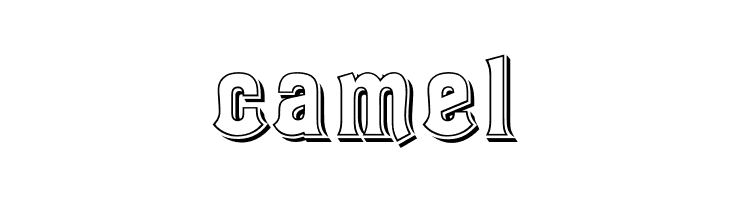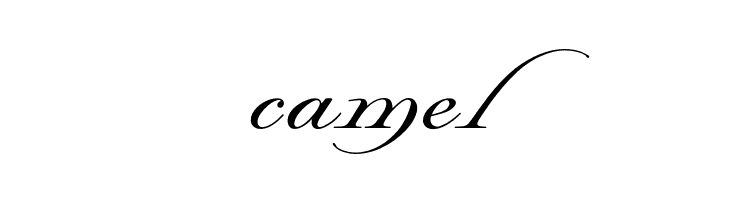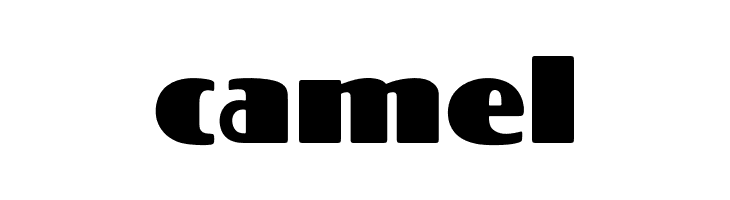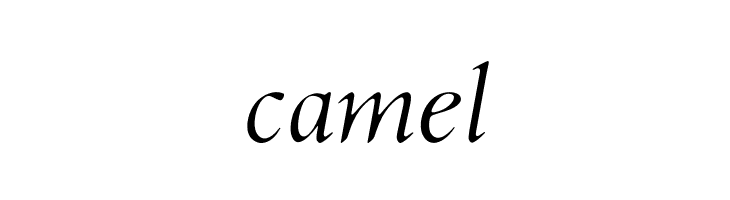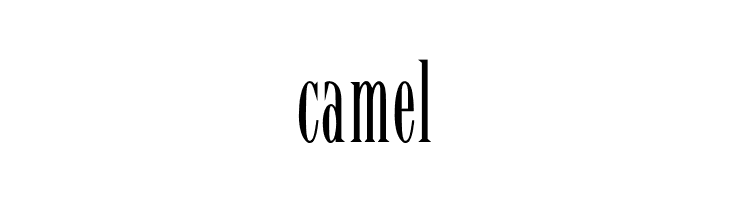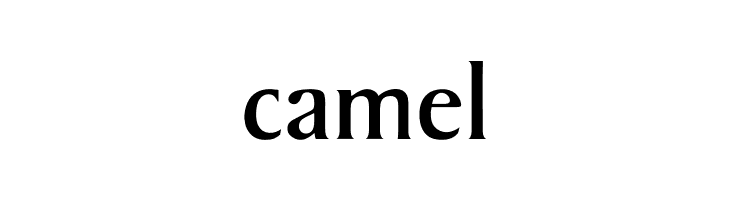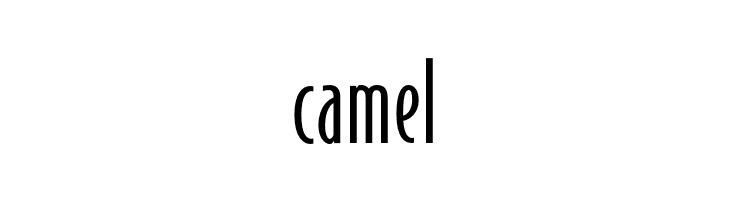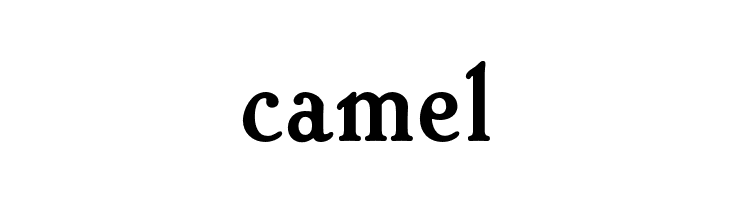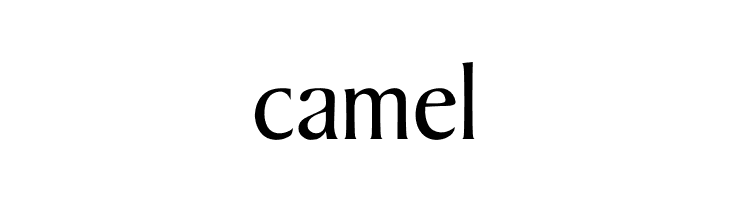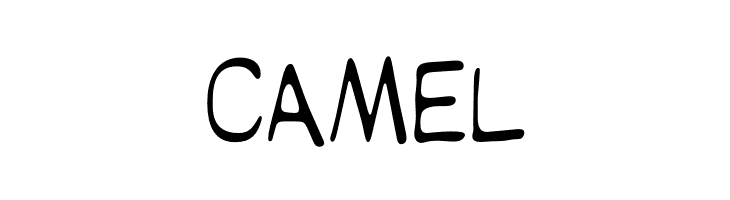
A tall, narrow font with a sleek, modern design and consistent character height.
A tall, narrow, and modern font with a sleek and elegant appearance.
A dynamic, fluid handwritten font with smooth curves and a slightly slanted style.
A classic serif font with elegant lines and refined curves.
A bold, geometric font with thick strokes and strong visual impact.
A bold, condensed font with a modern and impactful style.
A playful, hand-drawn font with a cartoon-like style and rounded edges.
A classic serif font with elegant curves and a timeless appearance.
A bold, high-contrast serif font with strong, thick strokes.
A classic serif typeface with medium weight, offering a balanced and readable appearance.
A bold, cursive script font with a dynamic and elegant handwritten style.
A whimsical and decorative font with intricate swirls and curls.
A classic serif font with elegant strokes and refined serifs.
A bold, geometric font with a modern and assertive style.
A classic serif font with modern elegance and versatility.
A bold, serif font with strong strokes and a classic yet modern appeal.
A bold, classic serif font with strong, elegant characters.
A bold, serif font with strong strokes and sharp serifs, perfect for impactful designs.
A classic serif font with elegant curves and sharp edges, offering a timeless and sophisticated look.
A graceful and elegant script font with a flowing, cursive style.
An elongated, high-contrast serif font with a dramatic and commanding presence.
A classic serif font with elegant, medium-contrast strokes.
A tall, elegant serif font with high contrast and sharp serifs.
A bold, three-dimensional font with a vintage, shadowed style.
An ornate, Gothic-style font with intricate details and sharp, angular lines.
A flowing, cursive font with elegant, sweeping strokes and a sophisticated style.
A bold, dynamic font with modern and classic elements, featuring sharp angles and smooth curves.
A bold, authoritative font with strong strokes and elegant curvature.
An elegant serif italic font with graceful curves and sharp serifs.
A classic serif font with semi-bold weight and moderate contrast, ideal for elegant and readable text.
An elegant script font with flowing, cursive letterforms and graceful swashes.
A classic serif font with elegant curves and medium weight.
A modern, geometric sans-serif font with clean lines and balanced spacing.
A bold, dramatic font with angular serifs and a classic blackletter influence.
A bold, outlined font with a sporty, dynamic style.